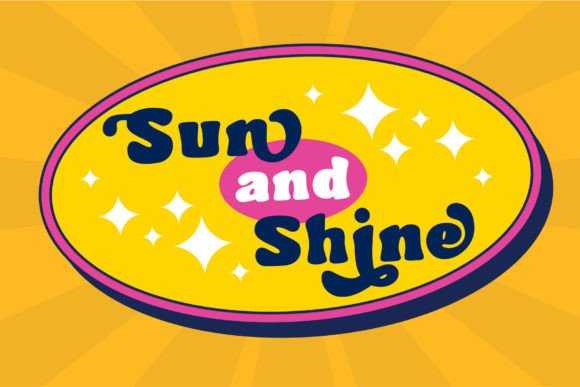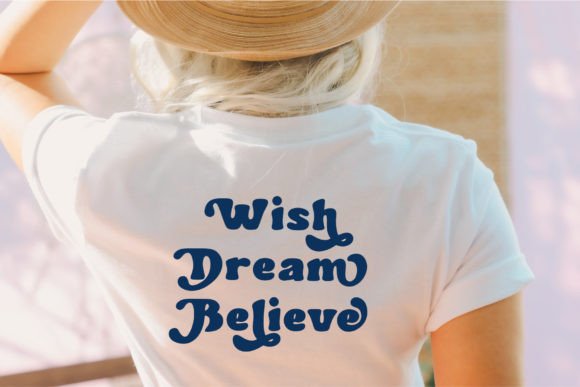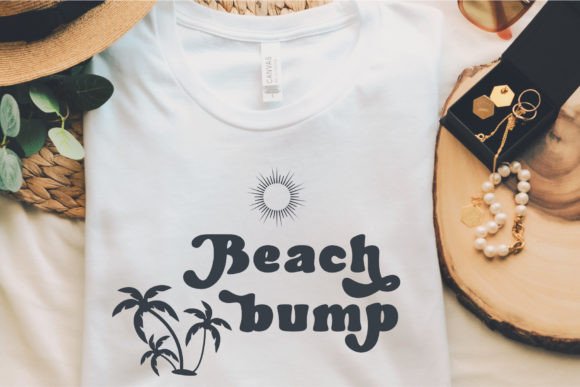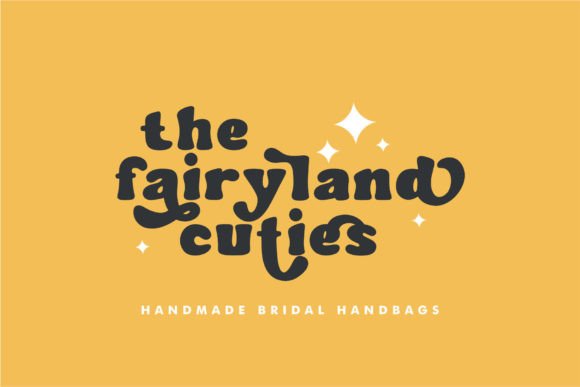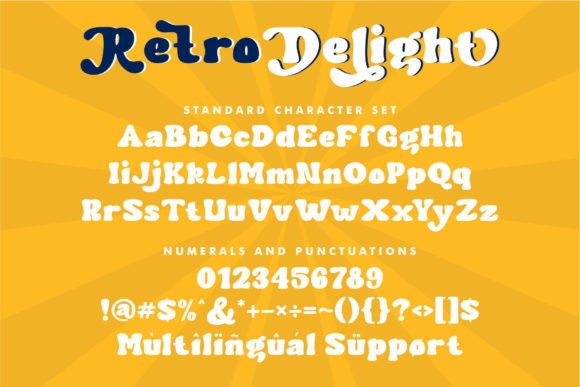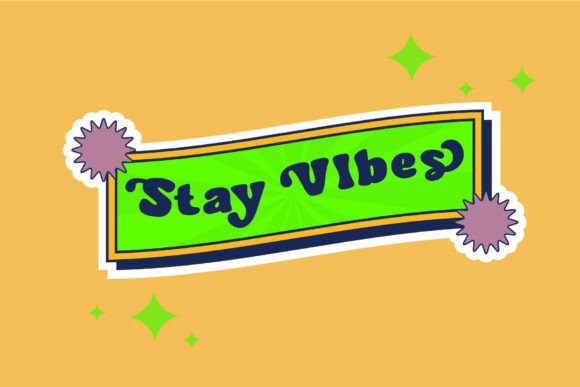
Introduction to Retro Delight Font
Retro Display Font “Retro Delight”.
Designed with the perfect blend of nostalgia, cute and girly, this font is a fun choice for all branding projects, shop logos, websites, projects with a childish theme, and girly Capture the hearts of your clients and evoke a sense of joy with Retro Delight Font.
Key Features of Retro Delight Font
Why Choose Retro Delight Font?
Retro Delight Font offers exceptional quality and versatility, making it a valuable addition to your design toolkit. Whether you’re creating for personal projects or commercial use, Retro Delight Font delivers professional results.